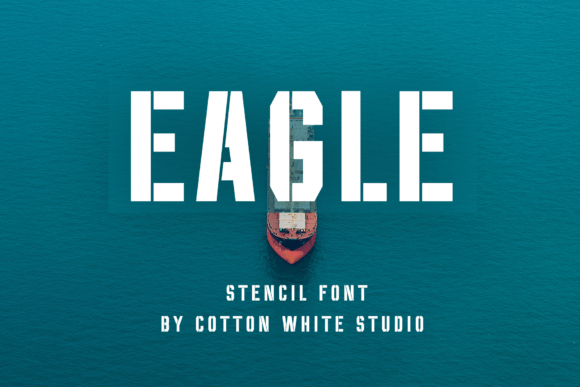
Looking for the perfect display font for your gym logo? Look no further than Eagle Font by Lemon Downloads. This highly detailed stencil font is modern and easy-to-spot, making it the perfect addition to any font library.
Crafted with precision, Eagle Font is a versatile display font that can be used for any topic or design. It's perfect for gym logos, as it adds a touch of strength and power to any branding.
With its unique and eye-catching style, Eagle Font is sure to captivate your audience and make your designs stand out. Whether you're creating signage, social media graphics, or merchandise, Eagle Font will elevate your creations to the next level.
Don't settle for a boring font that fails to make an impact. Choose Eagle Font for its superior quality and attention to detail.